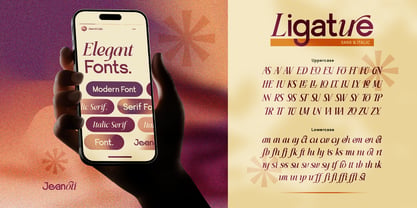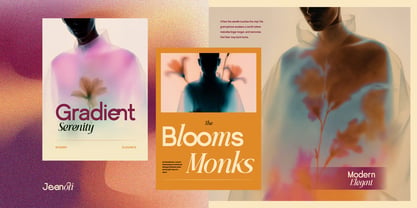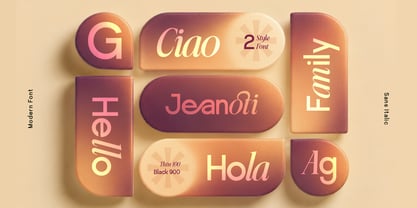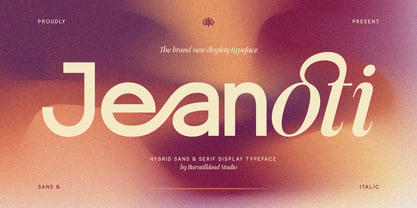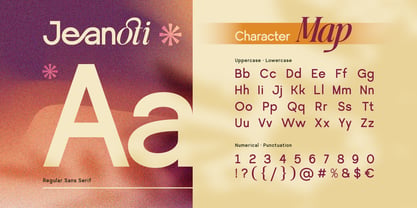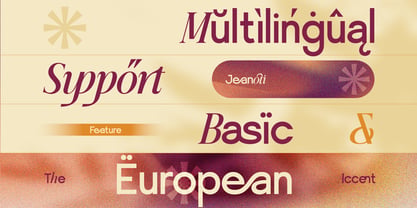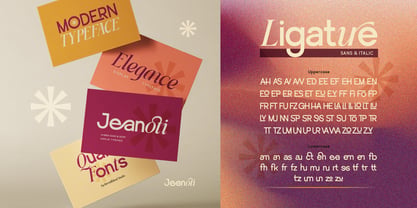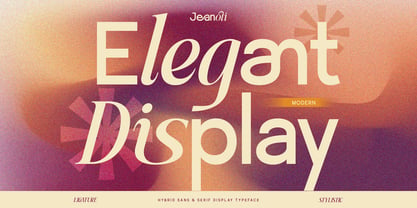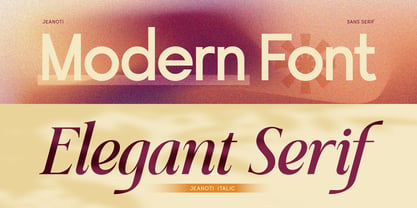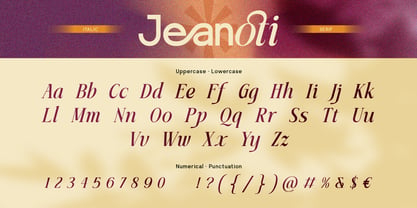
Jeanoti
by Burntilldead
The Jeanoti Font Family was designed by Eric Kurniawan and published by Burntilldead. Jeanoti contains 2 styles and family package options. More about this family
Meet Jeanoti, a bold new display typeface that breaks the rules by blending clean sans-serif structure with elegant serif flourishes in a single font family. Jeanoti brings a fresh, modern-vintage edge to any design project.
Jeanoti comes in two complementary styles: a Sans version with crisp, geometric letterforms perfect for bold statements, and an Italic version with graceful, flowing curves ideal for adding a touch of romance and sophistication. Together, they give you the flexibility to mix structure and elegance in one cohesive family.
Perfect For:
• Logo and brand identity design
• Fashion and beauty branding
• Wedding invitations and stationery
• Editorial headlines and magazine layouts
• Social media graphics and quote posts
• Packaging and product labels
• Poster and merchandise design
Features:
• A – Z set (Uppercase & Lowercase), Number, Punctuation, Ligatures, Multilingual